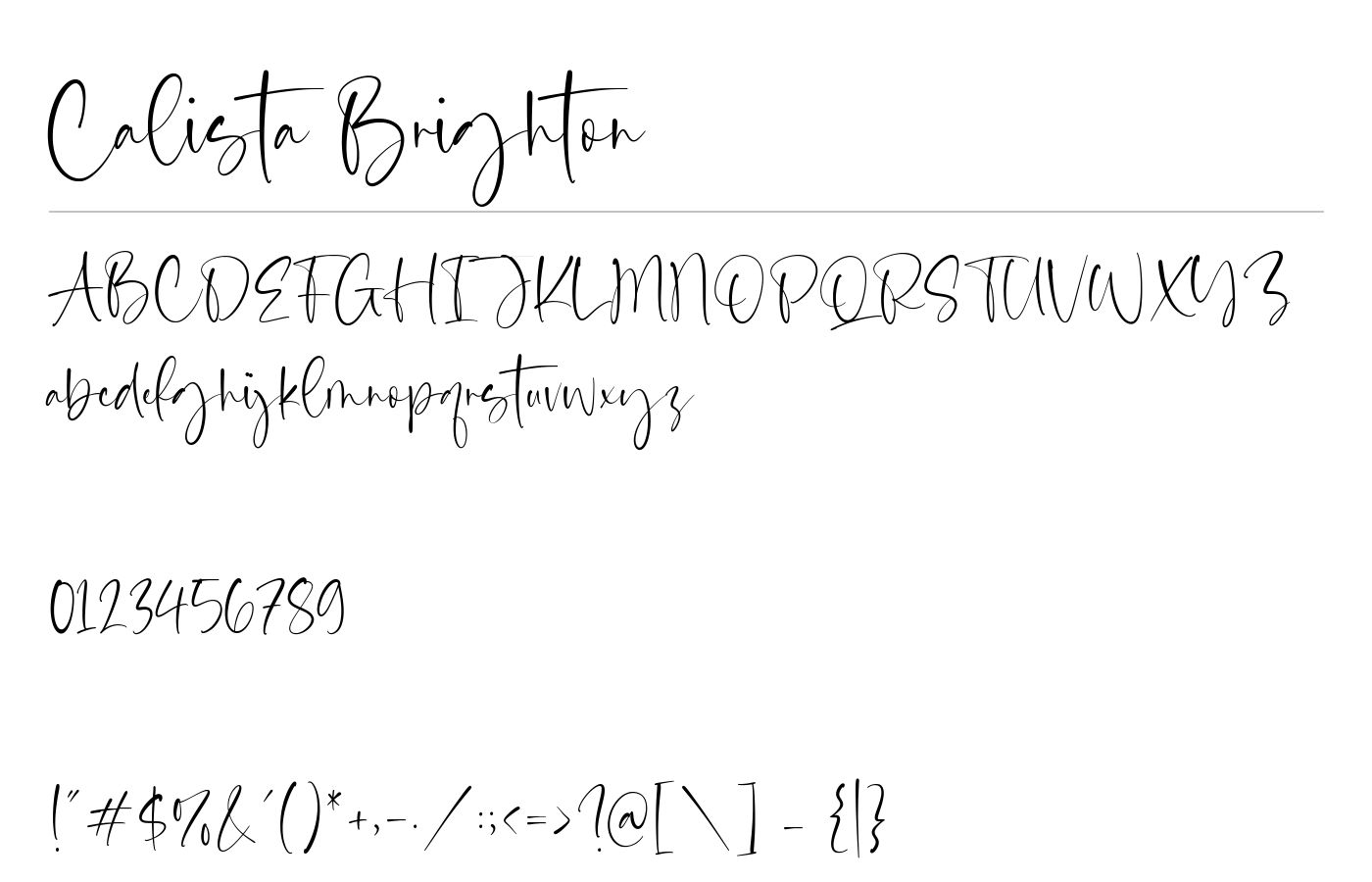
Calista Brighton is a delicate, hand-drawn script font with a light and airy feel, featuring graceful letterforms with flowing strokes and playful loops. Its narrow width and high x-height create an elegant yet approachable personality, making it ideal for creative branding, invitations, and personal projects that seek a stylish, friendly touch. This font works best in headlines and decorative text where its unique charm can shine clearly.
Calista Brighton Font
About Calista Brighton Font